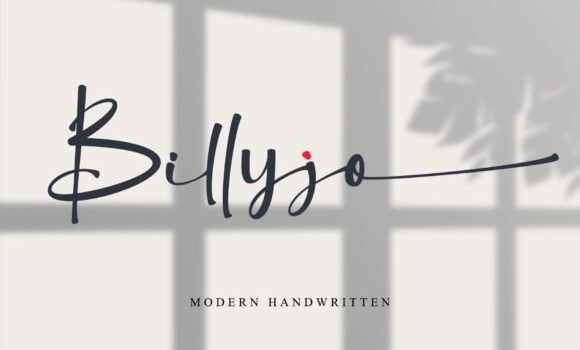
billyjo
Billyjo Font – Free Download Introduction to Billyjo Font Billyjo is a beautiful, well balanced and vintage styled script font. 📸 Preview Gallery 6 images 📌 Product Name Billyjo Font 👤 Author Stefani Letter 📂 Category Explore ⬇️ Download Billyjo